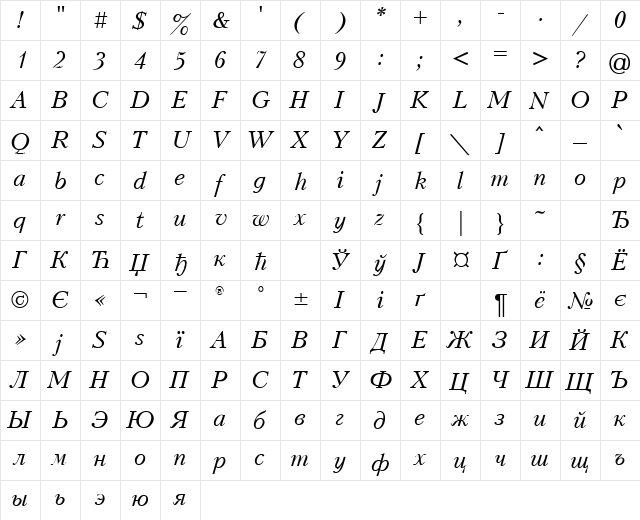
Milk Cow Blues 1 Regular
Design Context for Milk Cow Blues 1 Typeface
Milk Cow Blues 1 is a composed and adaptable typeface that performs quietly and consistently across a wide range of design contexts.